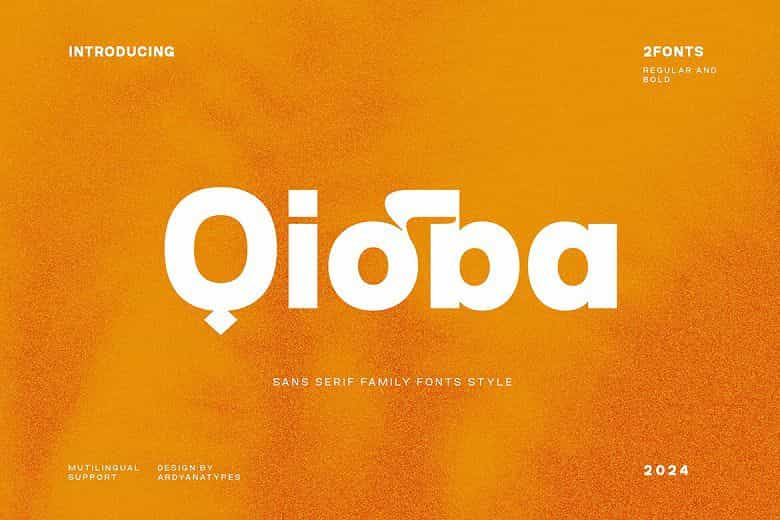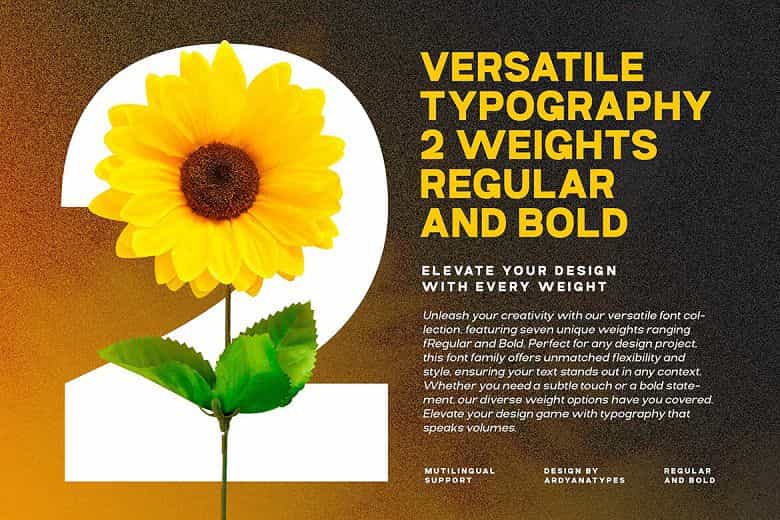
Qioba is a new and interesting sans serif font designed with lots of care and utmost precision. This font can be useful for giving almost any project a clean, polished appearance. With its OpenType features Qioba has numerous stylistic sets and optional characters for each glyph, which increases the possibilities of use.